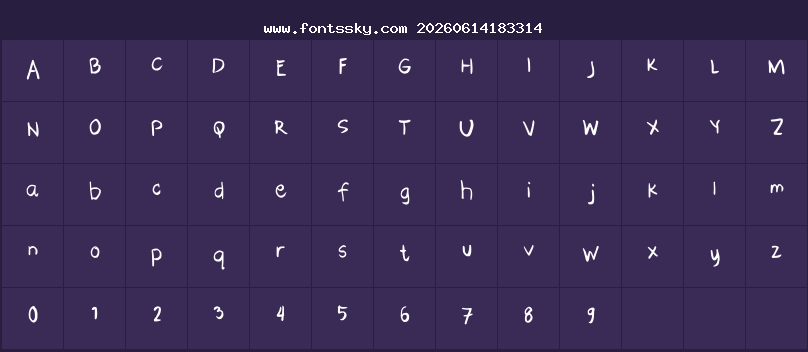
Pippa Handwriting Preview
• Font Name: Pippa Handwriting
• Font ID: Calligraphr : Pippa Handwriting Regular : 29-04-2019
• Full Font Name: Pippa Handwriting Regular
• Version: Version 001.002
• PostScript Name: PippaHandwriting-Regular
• Character Count: 113
• Designer: Queenie Appleyard
• Manufacturer: Pomaceia Limited
About Pippa Handwriting.otf
Pippa Handwriting.otf is a modern, elegant sans-serif font designed for ultimate readability and visual harmony. Perfect for branding, headlines, web design, and print materials.